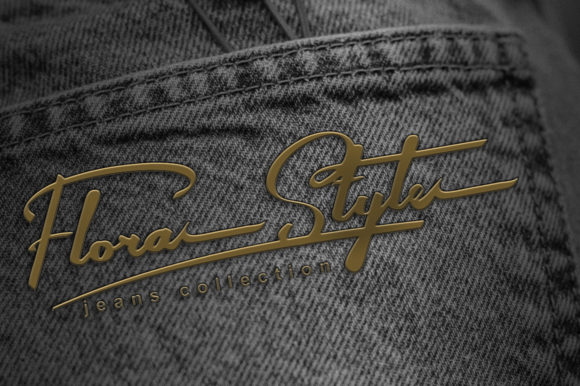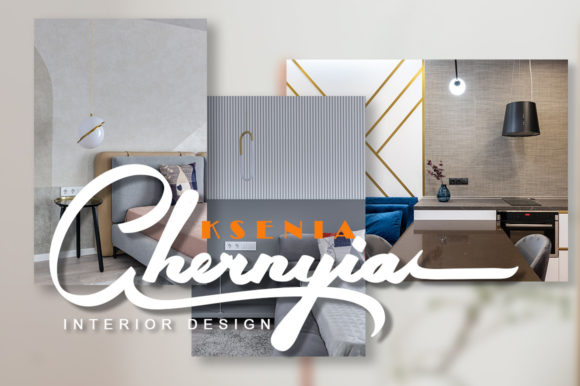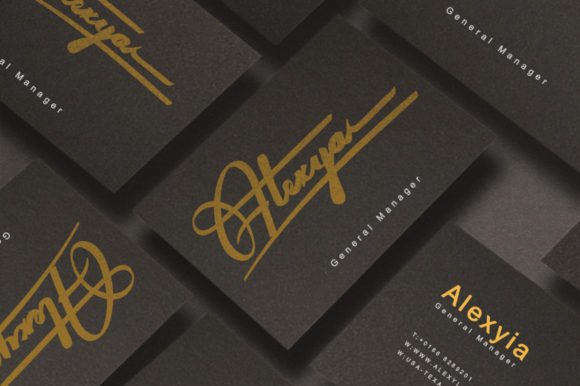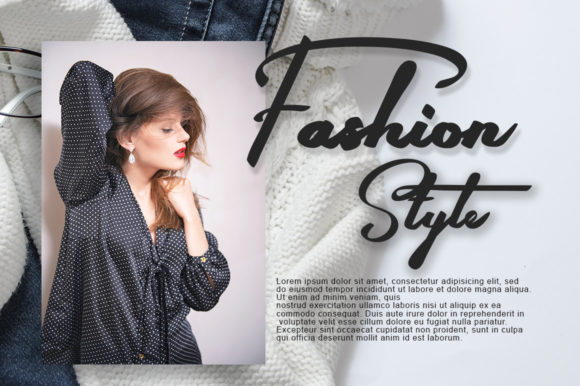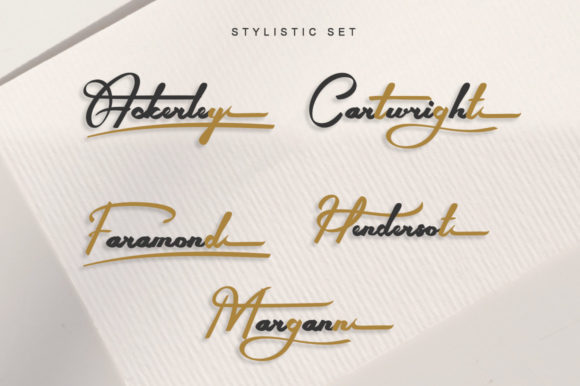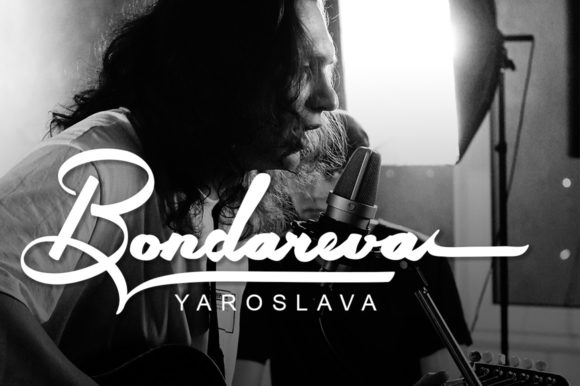
Alogittyon Font: Elevate Your Designs with Elegant Script Typography
In the world of typography, a well-crafted font can make all the difference in elevating your designs to new heights. For designers and crafters seeking a touch of sophistication and elegance, the Alogittyon font is an exceptional choice. This stunning script font boasts a contemporary atmosphere and impeccable form, drawing inspiration from timeless classic calligraphy.
The Beauty of Balance: Alogittyon’s Unique Characteristics
One of the standout features of Alogittyon is its masterful balance of thickness and thinness. Not too thin and not too thick, this font strikes the perfect harmony, making it a versatile choice for a wide range of projects. Whether you’re working on a luxury brand logo, a wedding invitation, or a high-end product packaging, Alogittyon’s balanced and varied strokes will add a touch of refinement and poise.
The font’s design is characterized by its flowing lines, beautiful swashes, and intricate details. Each glyph is carefully crafted to create a sense of movement and fluidity, giving your text a dynamic and elegant feel. With Alogittyon, you can add a touch of sophistication to your designs, making them truly unforgettable.
Another significant advantage of Alogittyon is its PUA (Private Use Area) encoding. This means that you can easily access all the glyphs and swashes, allowing you to experiment with different combinations and create unique text arrangements. With PUA encoding, you can unlock the full potential of the font, taking your designs to new levels of creativity and expression.
Inspiration from Timeless Classic Calligraphy
Alogittyon’s design is deeply rooted in traditional calligraphy, drawing inspiration from the classic scripts of the past. The font’s creator has skillfully blended modern sensibilities with timeless elegance, resulting in a font that feels both contemporary and classic. This blend of old and new makes Alogittyon an excellent choice for designers seeking to create designs that are both sophisticated and current.
Alogittyon’s versatility makes it suitable for a wide range of projects, including:
- Luxury branding and logos
- Product packaging and labeling
- Digital and print media
Whether you’re working on a high-end brand campaign or a personal project, Alogittyon’s elegant script typography will add a touch of sophistication and refinement.
Tips for Using Alogittyon Effectively
To get the most out of Alogittyon, here are a few tips:
- Experiment with different font sizes and colors to create visual hierarchy and emphasis.
- Use the font’s swashes and glyphs to add creative flair to your text arrangements.
- Combine Alogittyon with other fonts to create striking contrast and visual interest.
- Pay attention to kerning and tracking to ensure optimal readability and flow.
In conclusion, Alogittyon is an exceptional script font that offers a unique blend of elegance, sophistication, and versatility. With its balanced and varied strokes, PUA encoding, and inspiration from timeless classic calligraphy, this font is sure to elevate your designs to new heights. Whether you’re a designer, crafter, or simply someone who appreciates beautiful typography, Alogittyon is an excellent choice for anyone seeking to add a touch of refinement and poise to their projects.